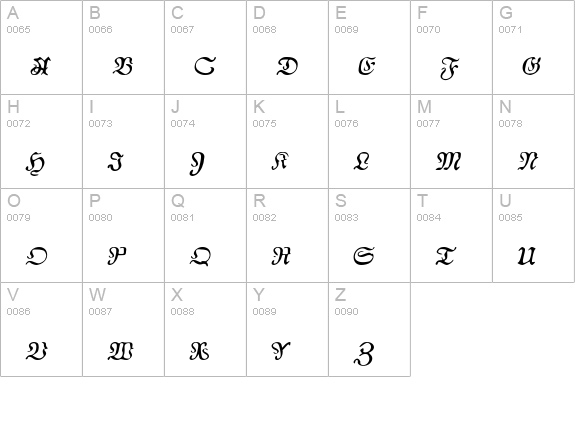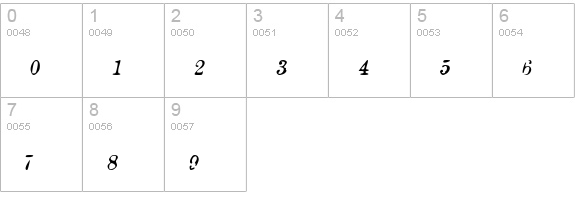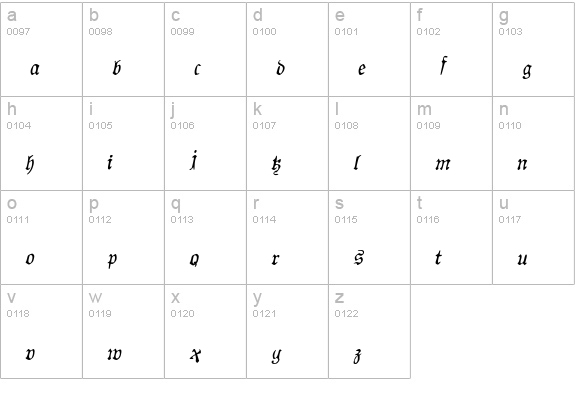
AuldMagick Italic Font Details
AuldMagick Italic is a distinctive, italic variant in the AuldMagick typeface family \xE2\x80\x94 well suited to design and typography projects.
Introducing AuldMagick Italic, a bewitchingly beautiful font that will transport you to a world of enchantment and mystery. With its delicate curves and elegant strokes, this font captures the essence of ancient magic and brings it to life on your screen. Whether you are designing a spellbinding logo, creating captivating graphics, or simply adding a touch of magic to your written words, AuldMagick Italic is the perfect choice. Its unique and distinctive style will make your designs stand out from the crowd and leave a lasting impression on your audience. But what makes AuldMagick Italic even more enchanting is that it is free. Yes, you read that right! This mesmerizing font is freely available to download at FontsMarket.com, making it accessible to everyone who wants to add a touch of magic to their creations. So, why wait? Embrace the power of AuldMagick Italic and let your imagination soar. Download this captivating font today and unlock a world of endless possibilities in your designs. Whether you are a professional designer or a passionate hobbyist, AuldMagick Italic is the perfect companion for all your creative endeavors. Let the magic begin!